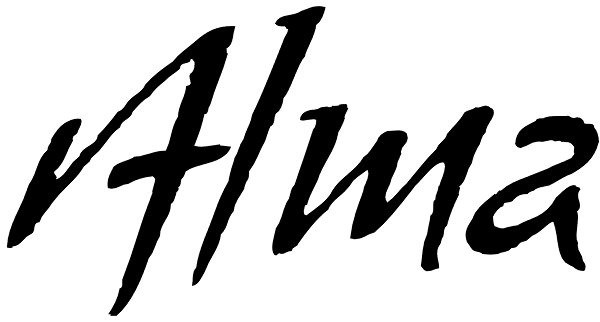
Alma
From the technical hand of Alejandro Paul and the creative jungle in the mind of Angel Koziupa, comes a wild-natured script. Alma may appear slightly weathered, but still maintains a sharp and determined face. The casual strokes are at times...